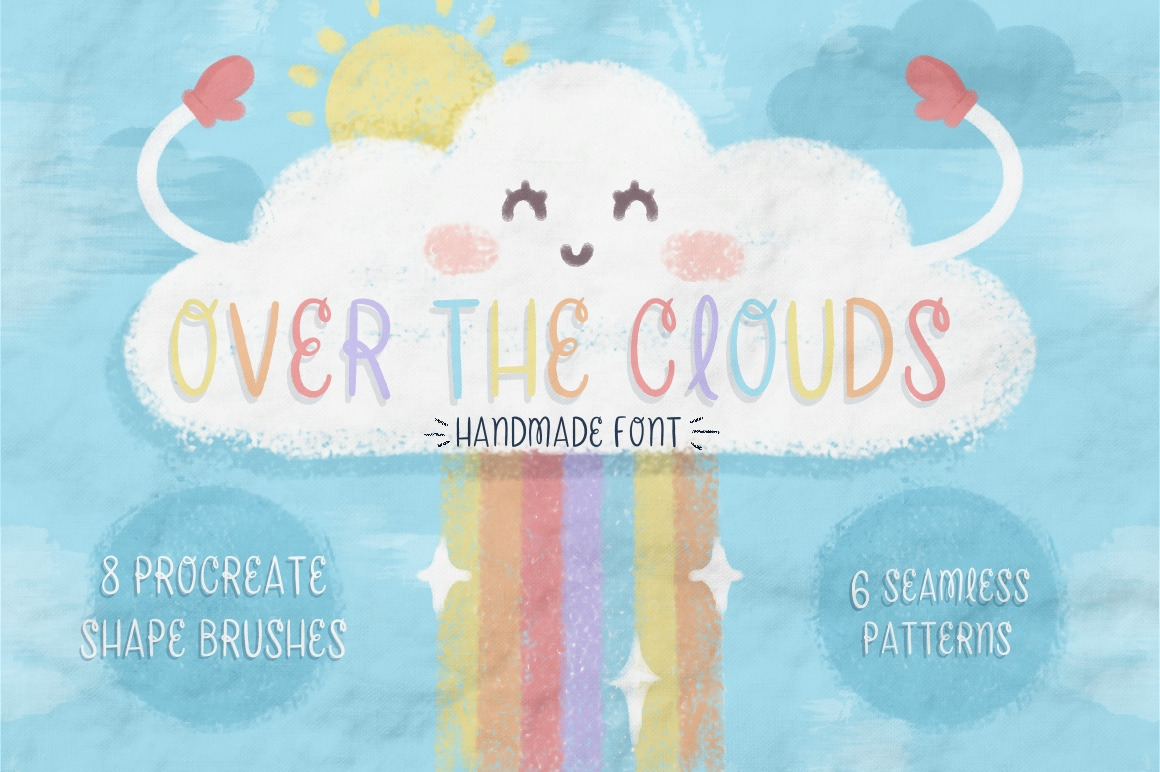
Over The Clouds - Font and Brushes
Over The Clouds is handmade cutie ready to brighten up your designs! This childish font can give the most bubbly vibe to your designs and these patterns can make anyone smile. This pastel rainbow colors are perfect for this font!
- Does this font is multilingual?
- includes Spanish letters and punctuation symbols.